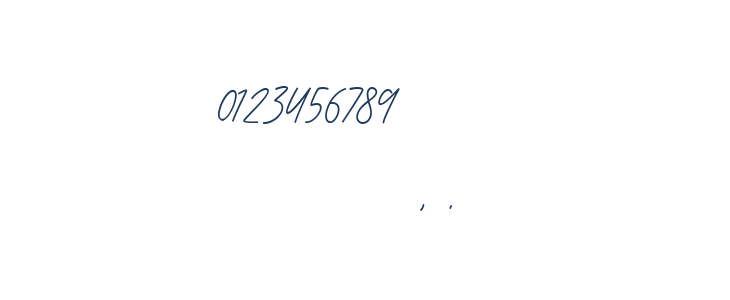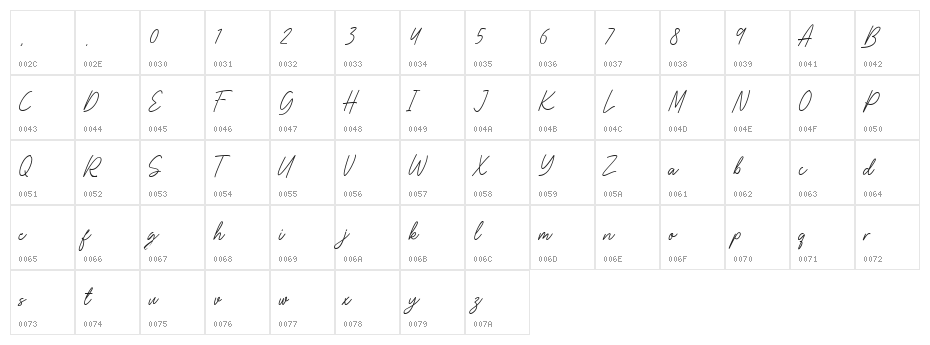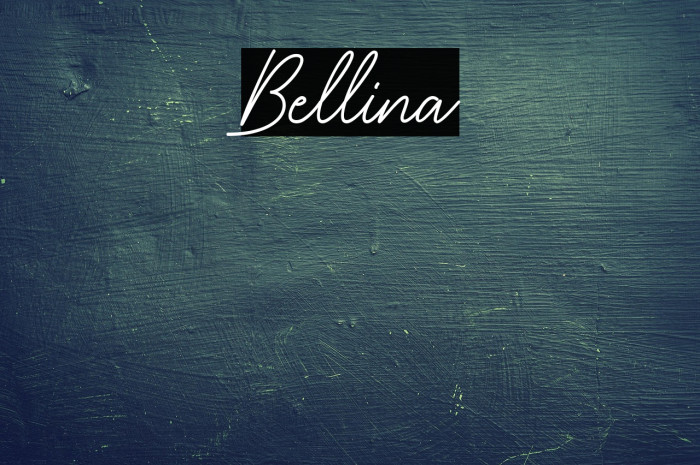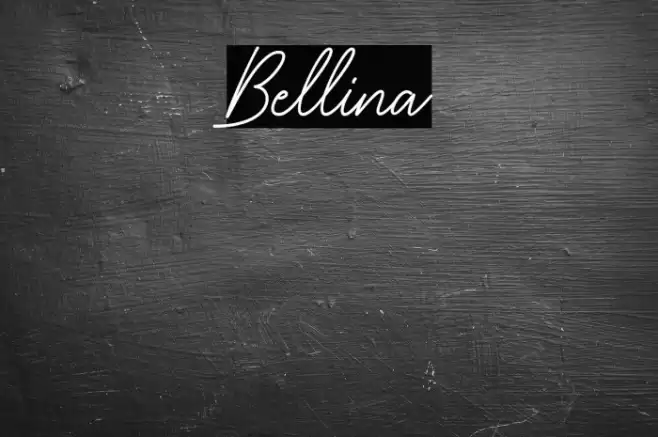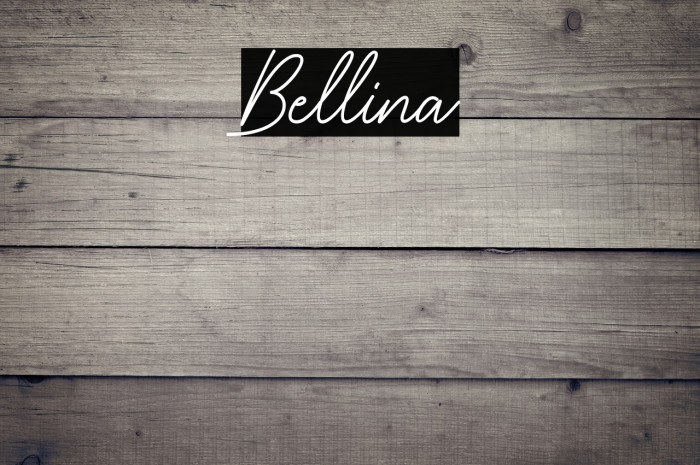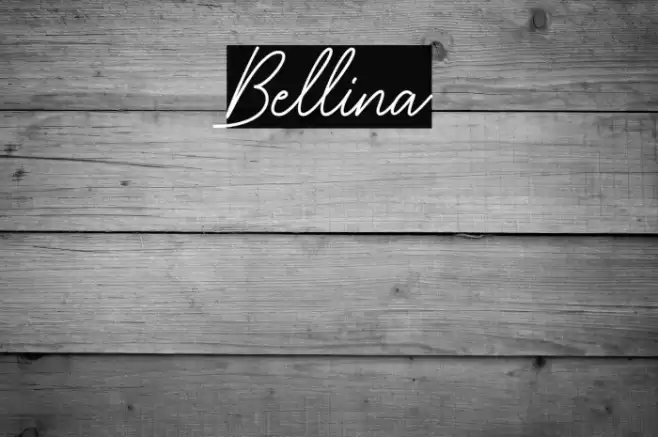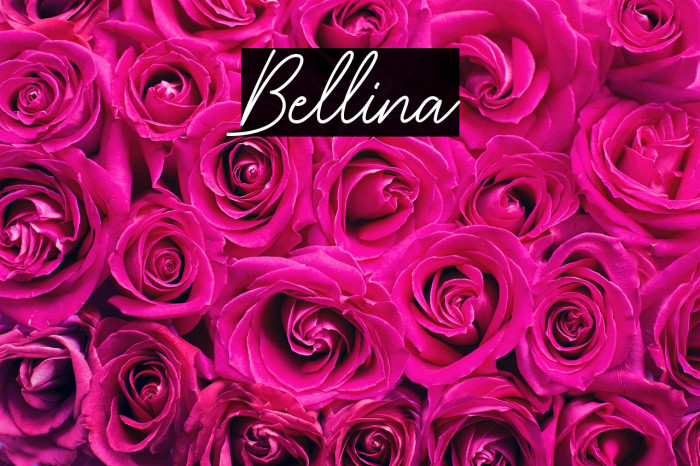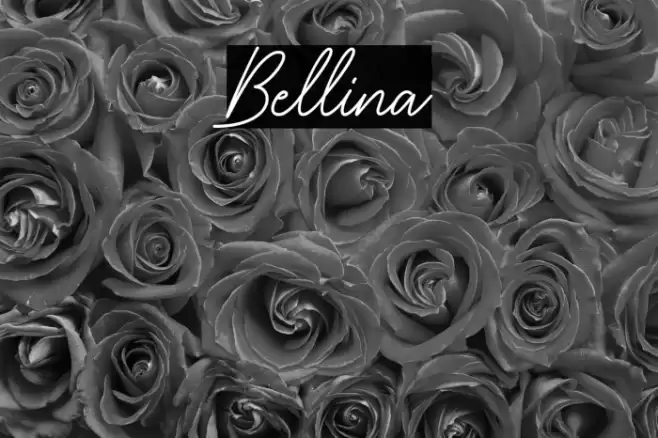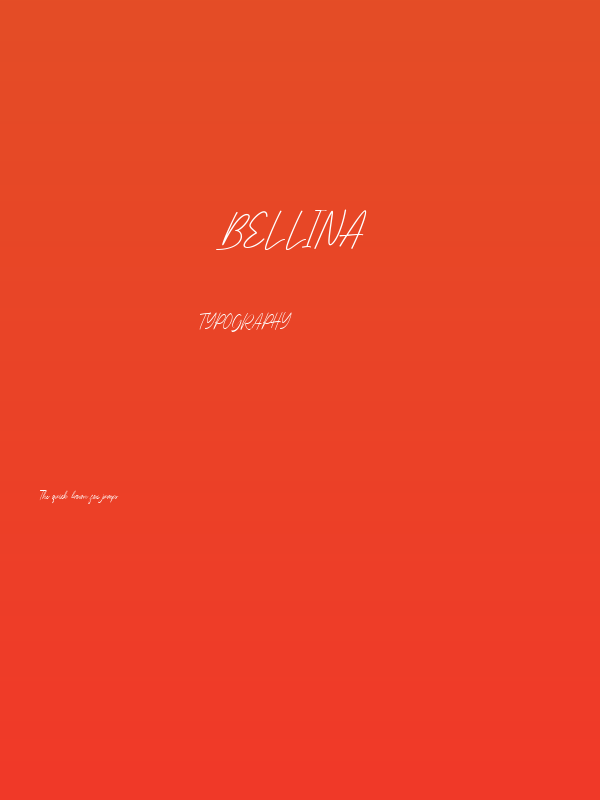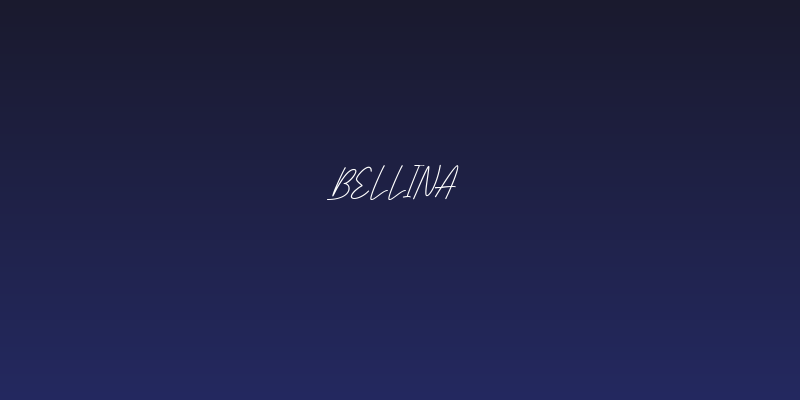
Bellina Font
Bellina Description
This elegant script font features smooth, flowing lines that give it a sophisticated and graceful appearance. The characters are slightly slanted, enhancing the cursive style, and each letter connects seamlessly to the next, creating a harmonious and fluid text. The uppercase letters are tall and slender, while the lowercase letters maintain a consistent height, adding to the font's readability. The numbers and special characters are designed to match the overall aesthetic, ensuring a cohesive look across all text. This font is perfect for projects that require a touch of elegance and style.